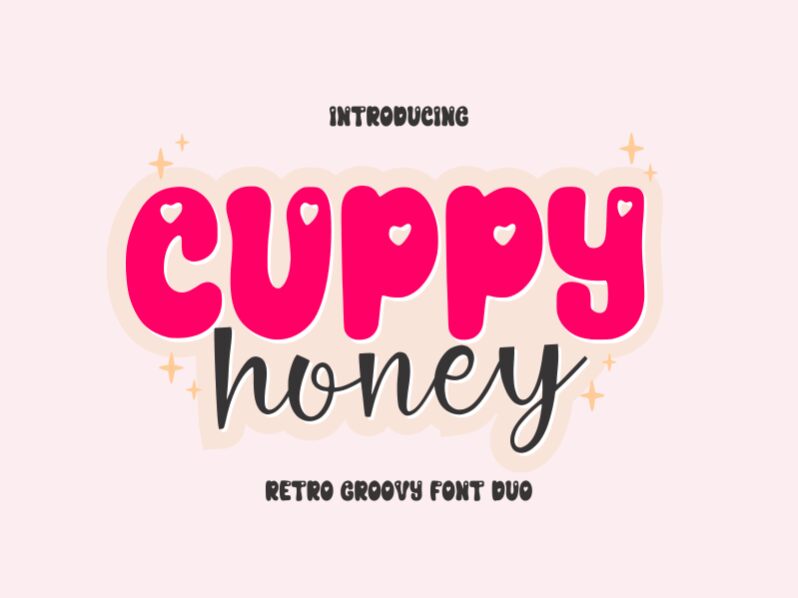
Cuppy Honney font family by Qwrtype Foundry is a free holiday-inspired font packed with warmth and whimsy. Expressive, playful, nonchalant – it is ready to push ideas forward with its strong visual qualities. Though it borrows inspiration from retro, its ultimate expression is contemporary and charming.
Cartoonish elements, combined with geometric forms give it an inviting character in which vintage flair forms a friendly personality people would love interacting with!
Oversized headlines, comics, branding, advertisements, packaging, posters, children’s books, and other graphics will level up with a fun, fancy, and memorable component. And such special results can be easily achieved with this free font.